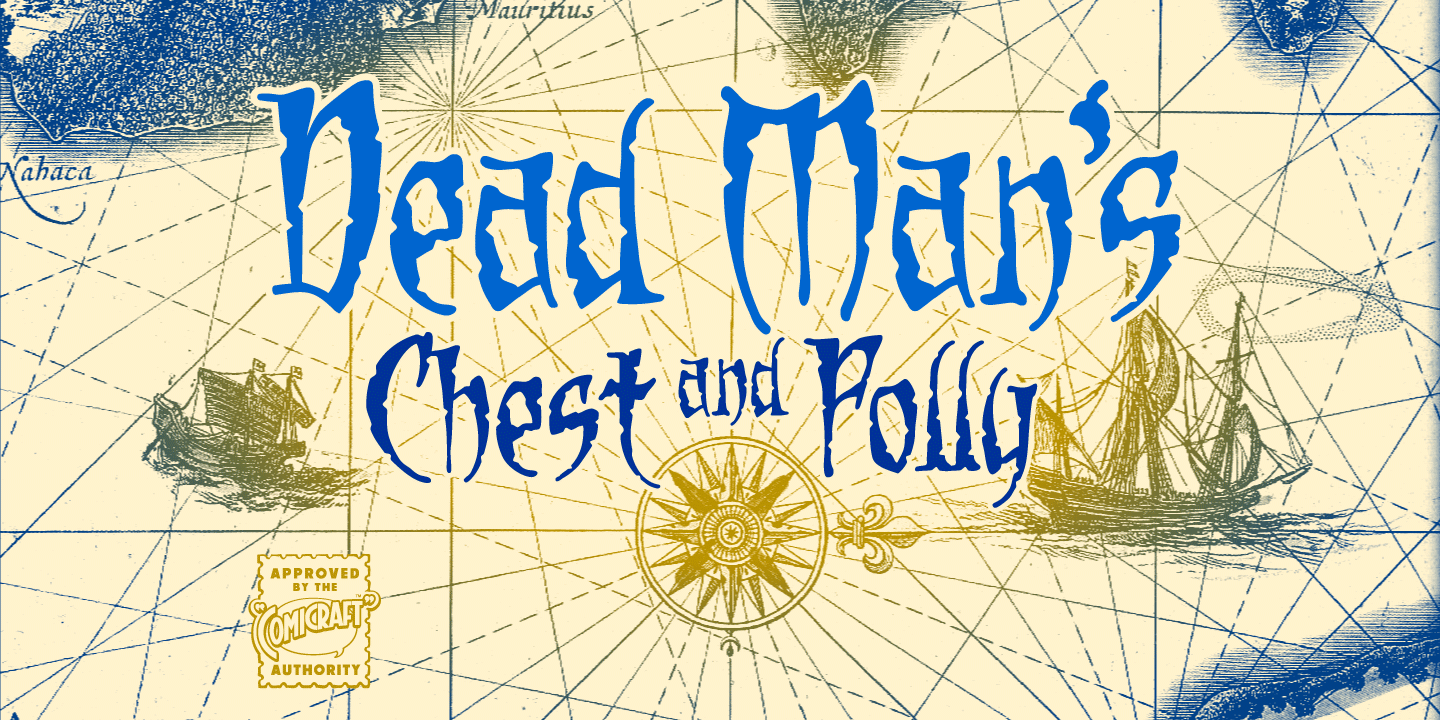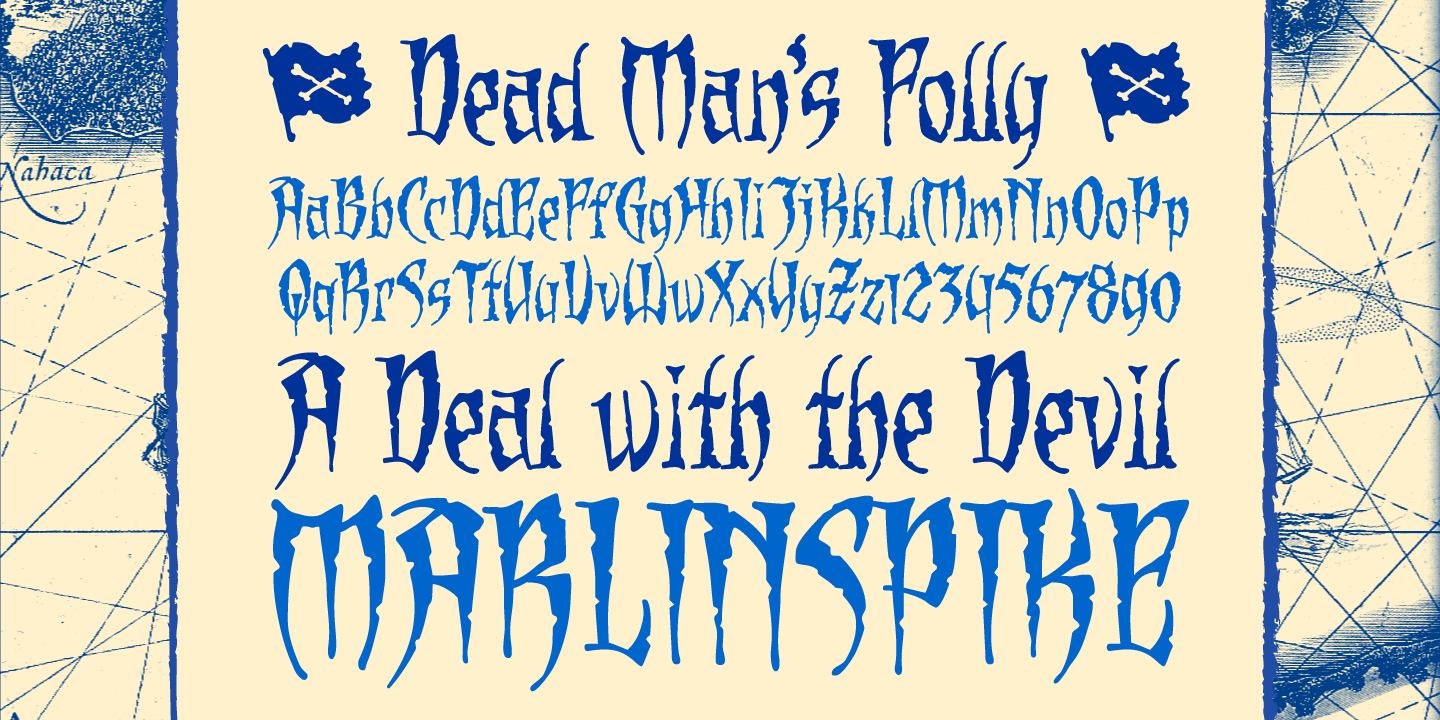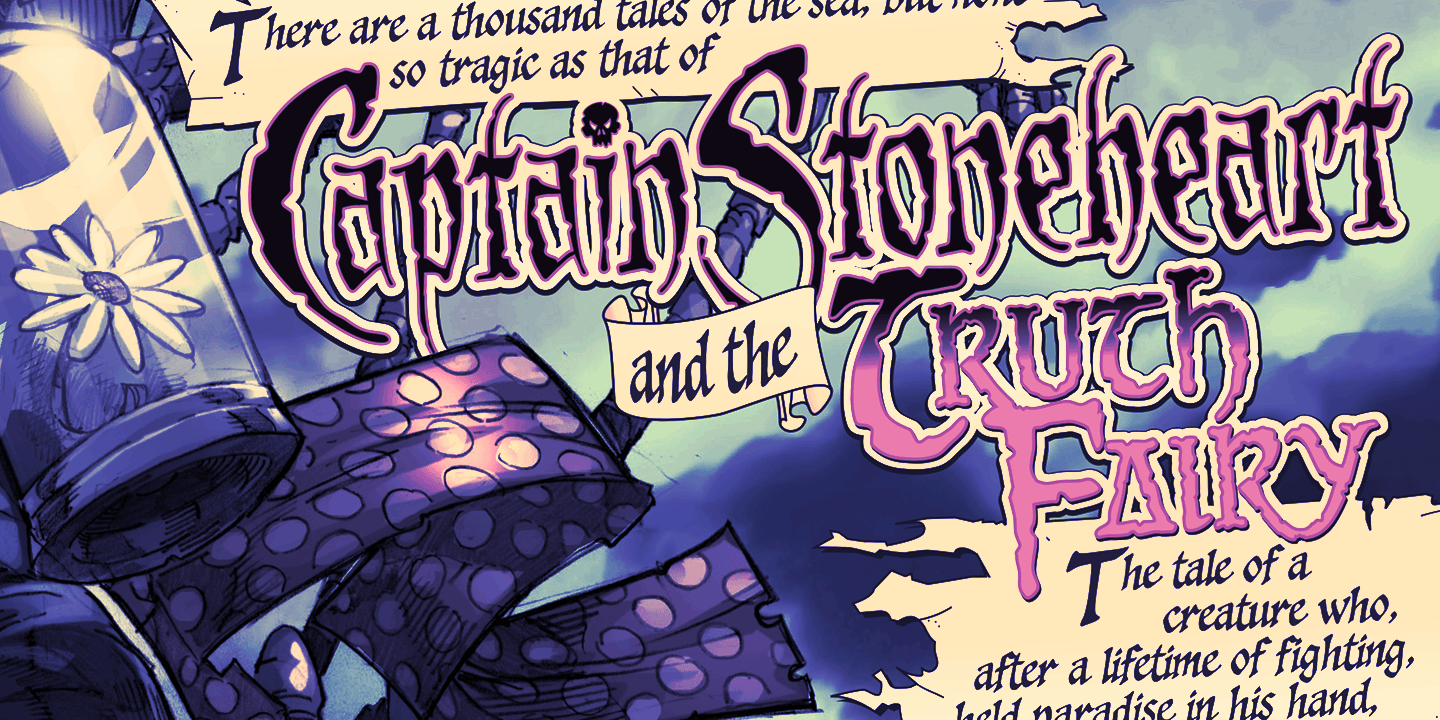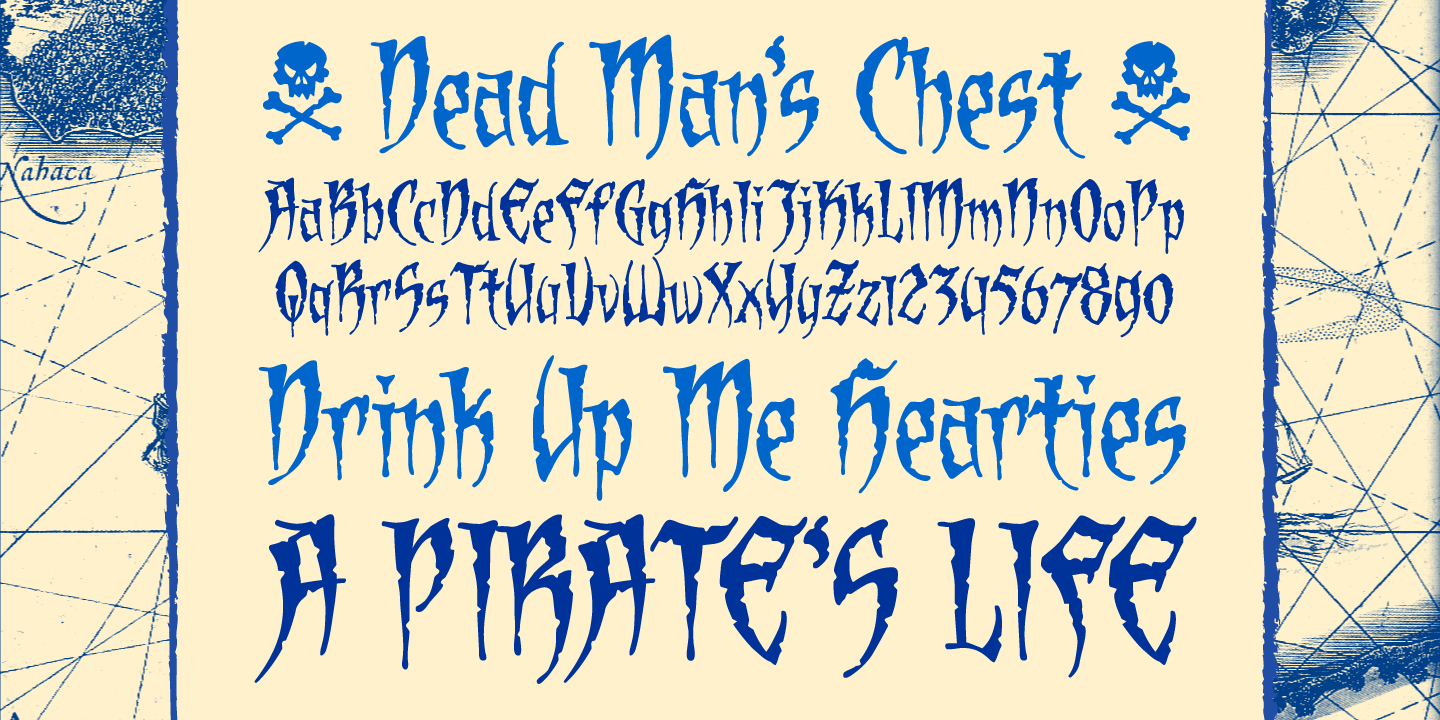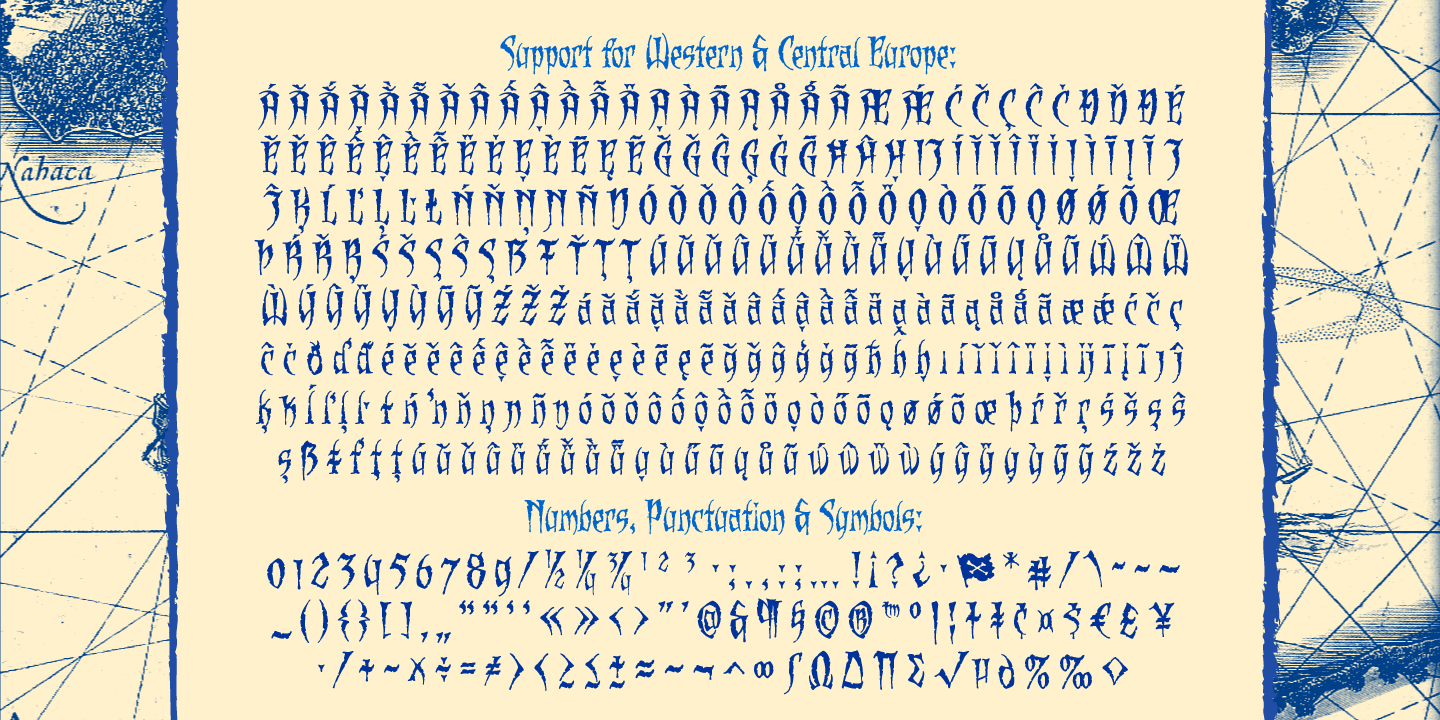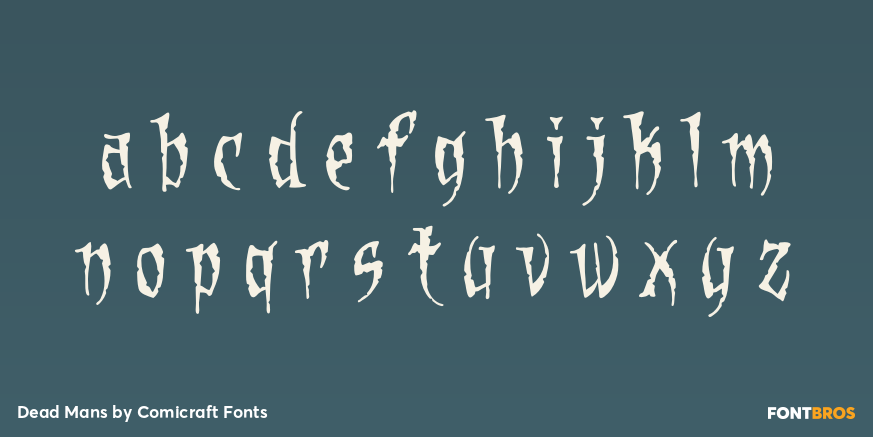
Dead Mans
Font Family by Comicraft Fonts
Shiver me Timbers and Splice me Mainbrace! There's strange goings on in Smugglers' Cove... A gathering of thieves, brigands, piratefolk and back-stabbing blackguards the likes of which have not been seen since the days of Redbeard!
Someone'll be swinging from the yardarm or walking the plank if the map identifying the location of the fonts created for Grim Todd McFarlane's SPAWN: THE DARK AGES doesn't turn up soon
Dead Mans Chest
Dead Mans Folly